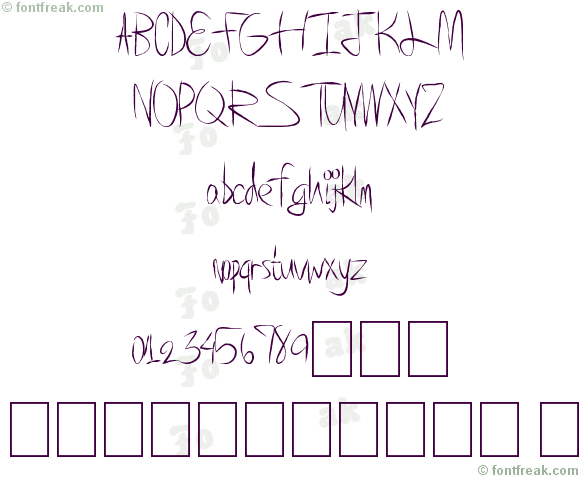
SuperAwesome
About SuperAwesome
SuperAwesome by XEROGRAPHER FONTS is a captivating handwritten font that embodies a playful yet sophisticated aesthetic. Designed in 2014, this font features a unique blend of fluid strokes and irregular character shapes that add a personal touch to any project. The stroke weight varies throughout, creating a dynamic and engaging visual flow, while the natural contrast enhances its legibility. The spacing between letters is thoughtfully considered, ensuring that the text remains clear and inviting.
This versatile font is perfect for a range of applications. It shines in wedding invitations, where its charming style adds a heartfelt touch to formal events. Additionally, SuperAwesome is an excellent choice for restaurant menus, helping to convey a warm and inviting atmosphere. Graphic designers will appreciate its suitability for branding projects, giving businesses a distinct personality. Furthermore, content creators can utilize this font for social media graphics, making posts stand out in an increasingly crowded digital landscape.
The target audience for SuperAwesome includes graphic designers, small business owners, and content creators seeking to elevate their visual communication. The font’s charming and approachable style resonates with those looking to make a memorable impression.